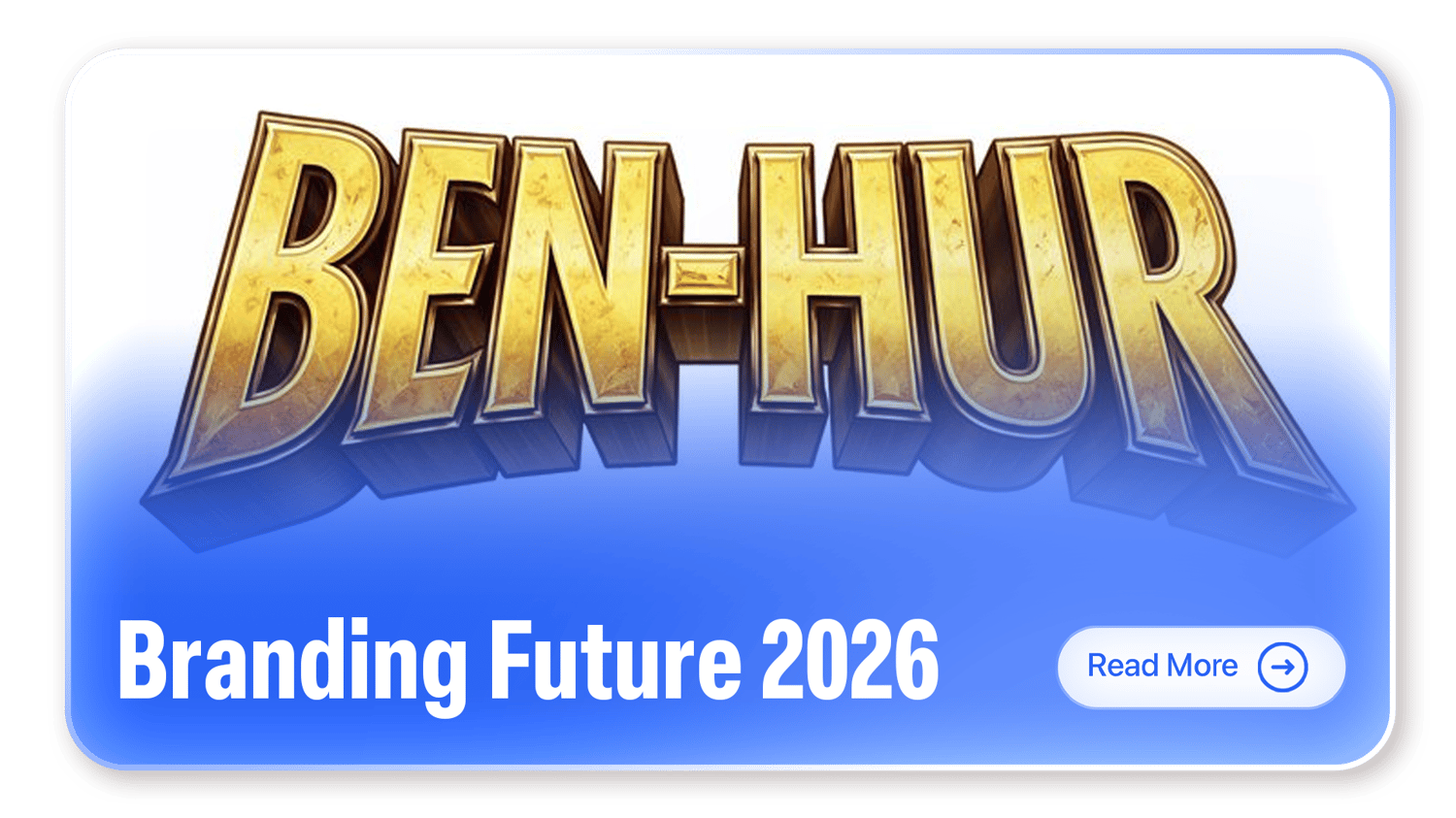
The Future of Branding: Why High-Tech Aesthetics & 3D Emblems Are the New Premium Standard
In today’s hyper-fast digital landscape, a brand has less than three seconds to make a statement. The question is: Does your visual identity speak for you before the audience even reads your first word?
As we head into 2026, we are witnessing a massive shift in how audiences perceive brands. The era of over-simplified "flat" design is making way for something more dimensional, technical, and authoritative. At Firstype Studio, we define this evolution as High-Tech Elegance.
1. Dimension Defines Authority: The Power of 3D Emblems
In the past, 3D design was often seen as a mere decorative add-on. Today, elegant 3D emblems—especially those featuring isometric perspectives—have become symbols of established prestige. Why? Because dimension creates a sense of "presence."
When a brand utilizes visuals with depth, the audience subconsciously perceives the brand as more solid and reliable. It’s not just a trend; it is a communication tool that signals your products are engineered with high-level technical precision.
2. Industrial-Geometric Typography: The Language of Innovation
Typography is more than just text; it is the voice of your brand. The 2026 trend points toward a return to bold, industrial-geometric forms. Clean, symmetrical characters with sharp, intentional angles signal that your brand is a pioneer.
This style is particularly resonant for future-facing industries—from Electric Vehicles (EV) and AI technology to creative studios that prioritize functionality without sacrificing beauty.
3. Precision as the Foundation of Trust
Trust is not built on claims alone; it is built on details. In visual design, precision is manifested through perfect ratios, meticulous font kerning, and a cohesive color palette.
When your visual identity looks "expensive" from a technical standpoint, the audience automatically associates that design quality with the quality of the service or product you provide. At Firstype, we believe that if the design is flawless, the brand is trustworthy.
Conclusion: Is Your Brand Future-Ready?
Visual identity is an investment, not an expense. By blending high-tech aesthetics with precise design execution, you aren’t just building a brand—you are building a standard of trust that is difficult for competitors to shake.